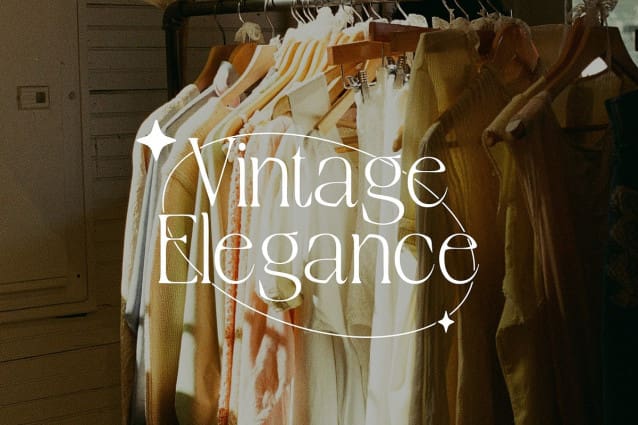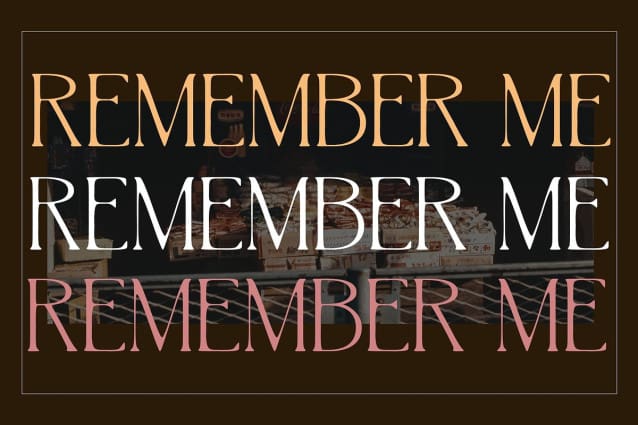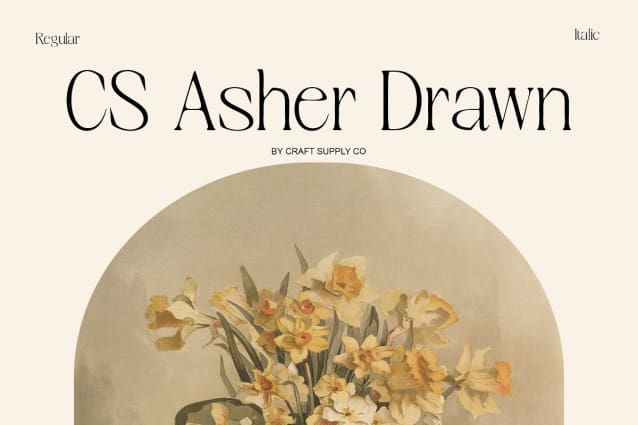
CS Asher Drawn Font
CS Asher Drawn Font is a modern serif font that combines the elegance of classic serif typography with a minimalist design approach. Featuring structured, clean lines and refined serifs, it offers a sophisticated, professional look that exudes modernity and timeless appeal. The simplicity of its design—free from unnecessary embellishments—makes it highly versatile, ideal for designs that require clarity, readability, and contemporary elegance.
Hand-Drawn Effect for Warmth and Personality The key feature of this font is its delicate hand-drawn effect. This artisanal touch adds depth and texture to each letter, introducing warmth and individuality while preserving the font’s minimalist aesthetic. The contrast between the modern, clean design and the organic, hand-crafted quality of the drawn effect creates a compelling balance, making the font feel both structured and personal, sophisticated and approachable.
Perfect for Luxury, Formal, and Editorial Projects With its streamlined and refined appearance, this drawn font is ideal for luxury branding, high-end editorial designs, formal invitations, and any project that requires a modern yet timeless feel. The drawn effect imbues the font with a unique character, ensuring it stands out while maintaining its professional edge.